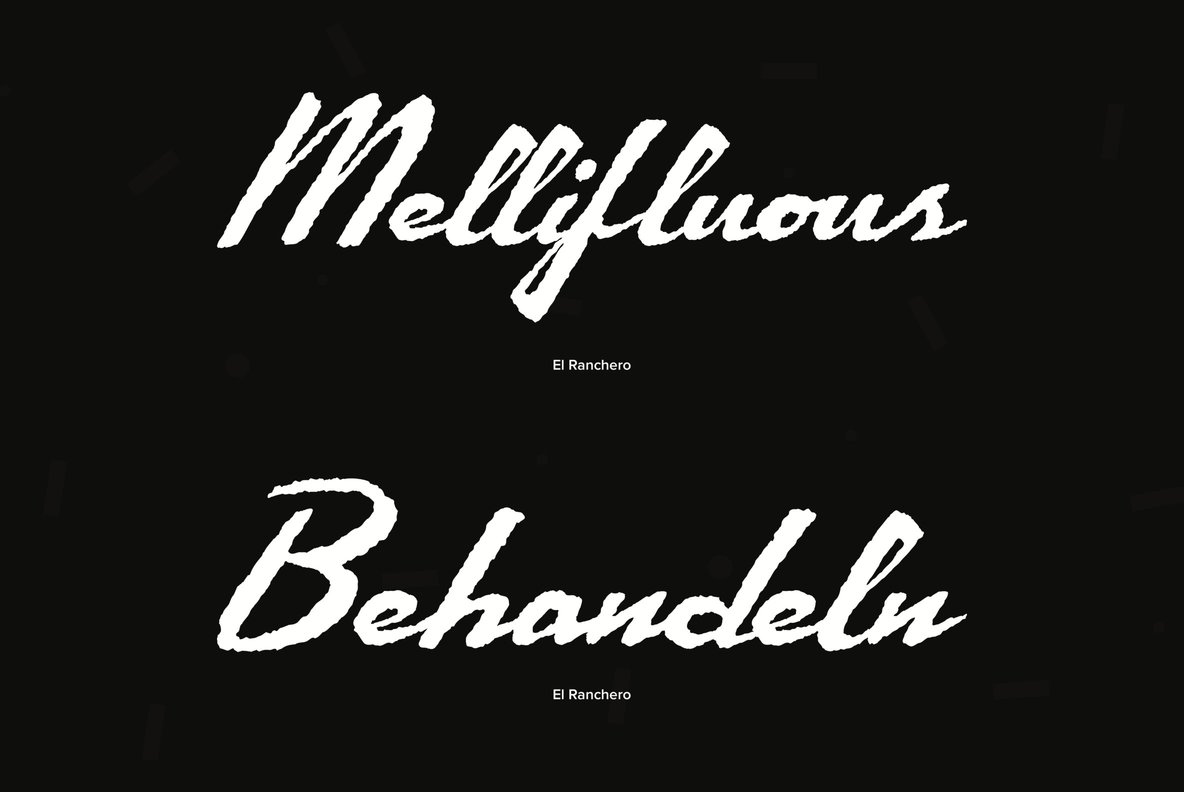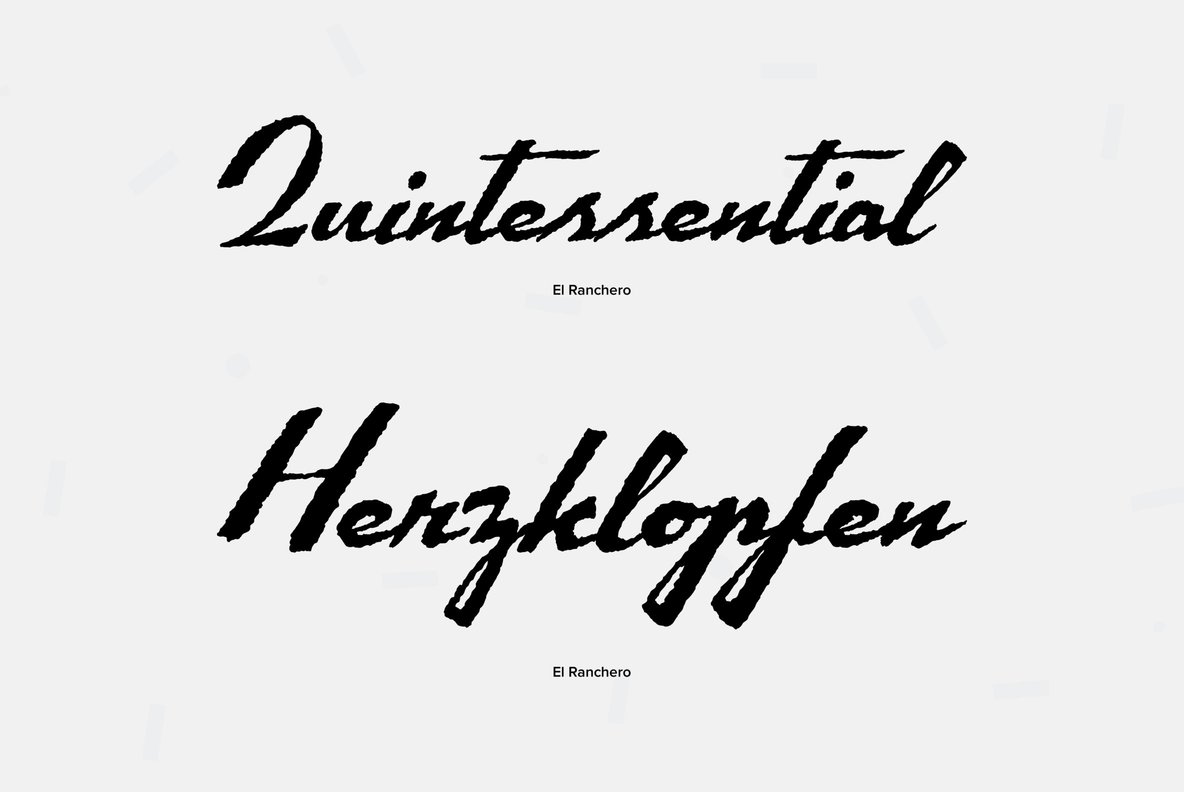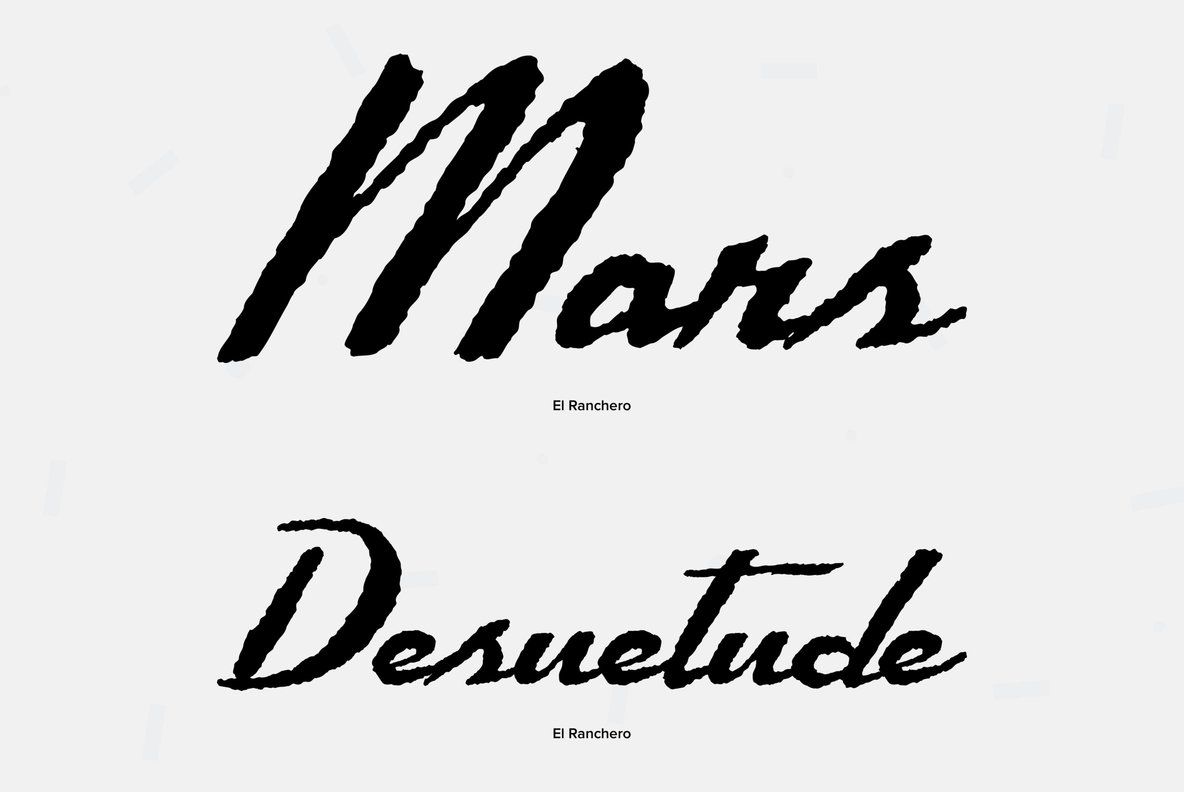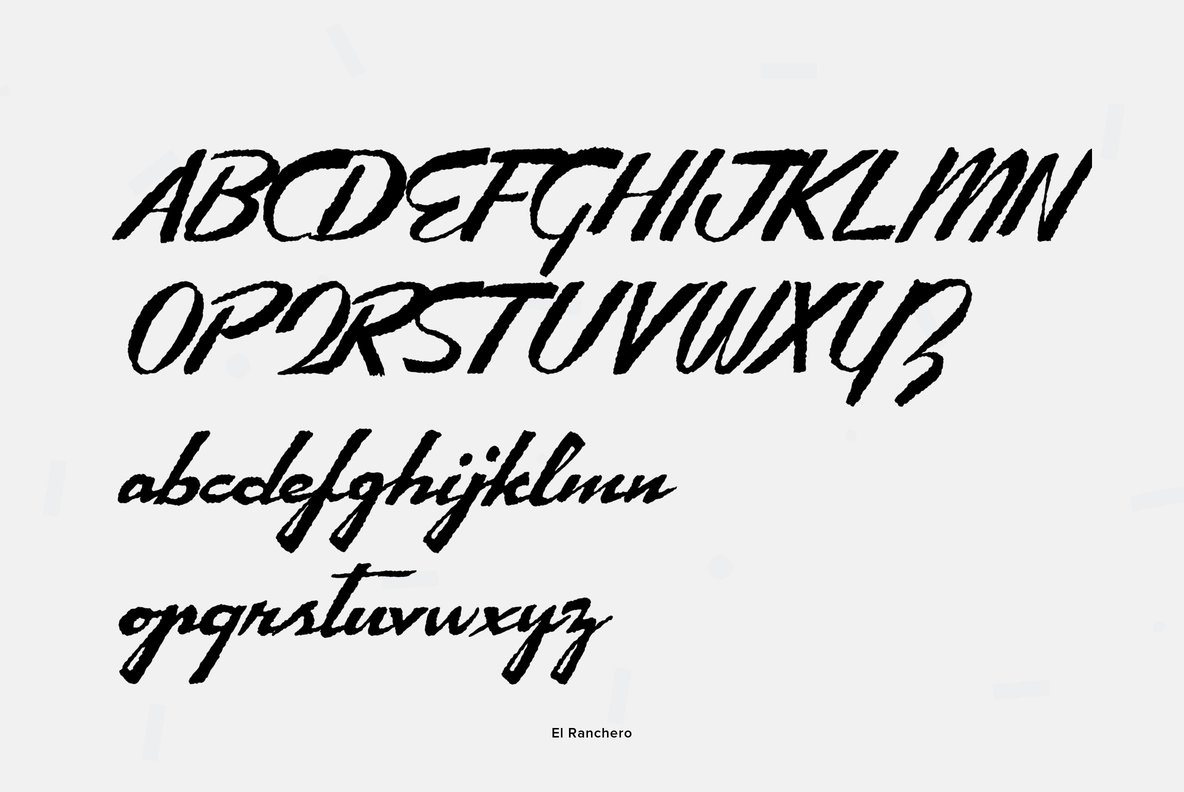
El Ranchero
Foundry: Font Diner
Grab a plate of beans, a Tex-Mex spiced critter and a heap 'o vittles to go with this saucy Southwestern rough-riding script!